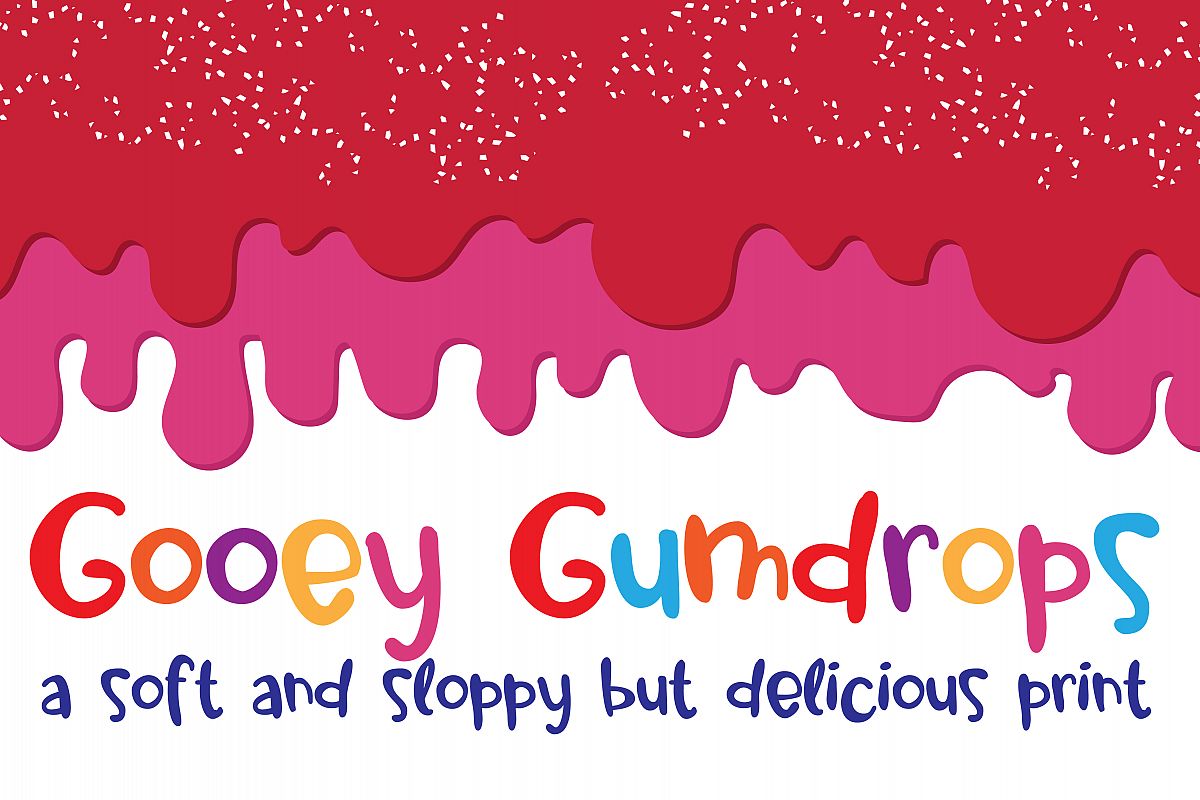
PN Gooey Gumdrops
This hand-crafted font is has a soft sloppiness to it but it keeps projects youthful and whimsical. It pairs well with it's sister font, PN Gooey Gumdrops Script.
Numbers & Symbols